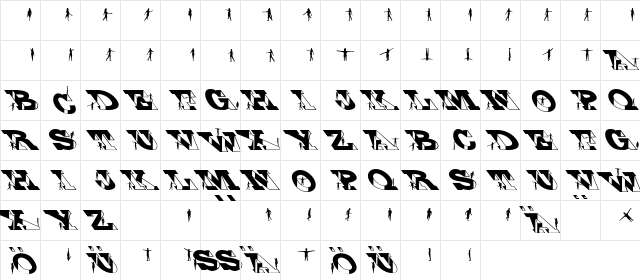
VertigoPeople Regular
Design Context for VertigoPeople Typeface
VertigoPeople is a composed and adaptable typeface that performs quietly and consistently across a wide range of design contexts.